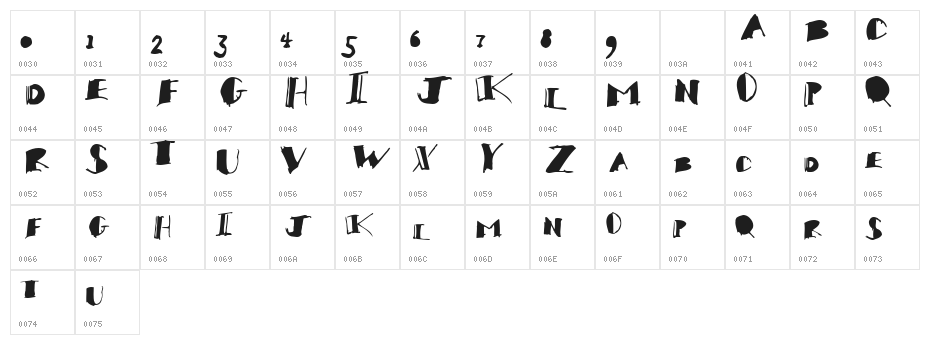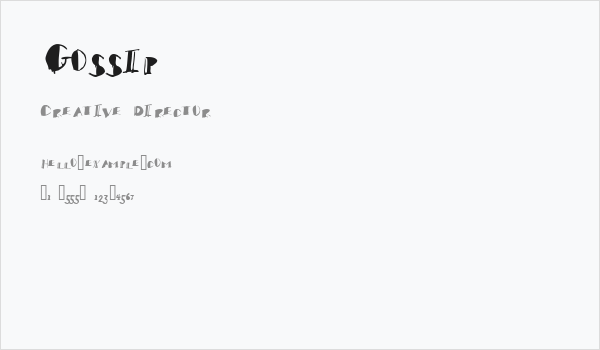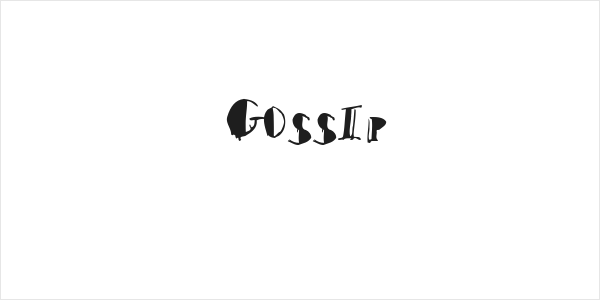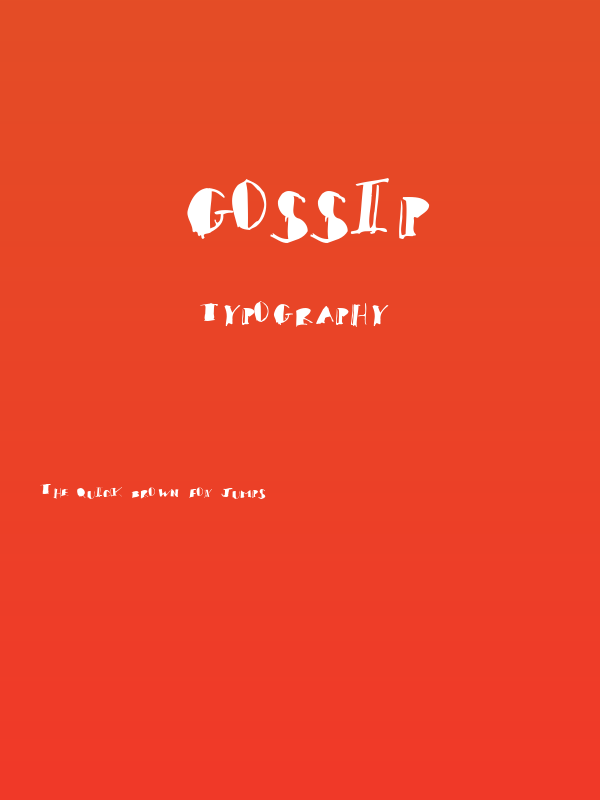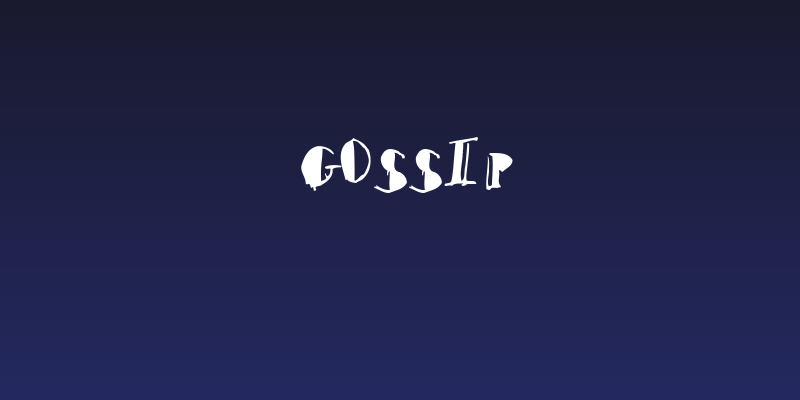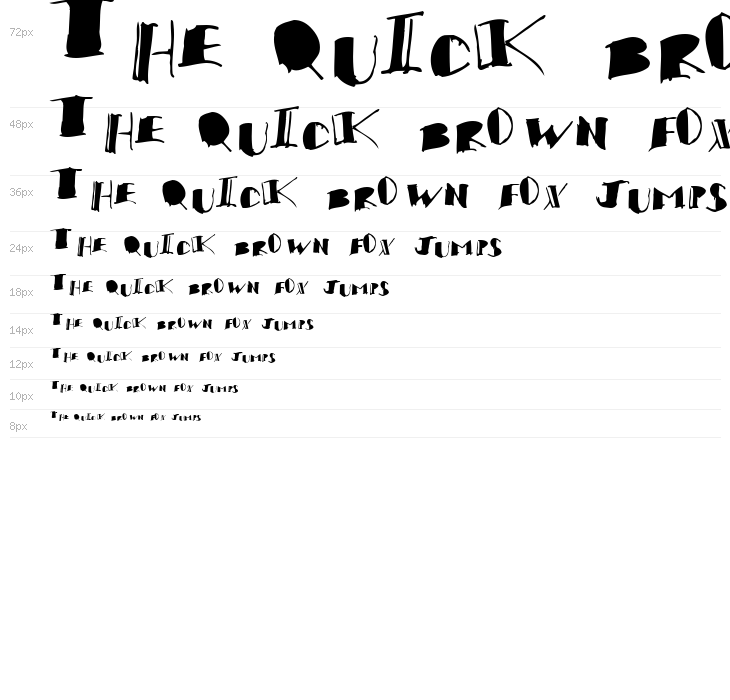
Gossip Font
Gossip Description
This font features a bold and expressive style with a hand-drawn appearance. The characters are irregular and dynamic, giving a sense of movement and energy. The uppercase letters are particularly striking, with varying stroke widths and unique shapes that create a playful and artistic look. The lowercase letters maintain this artistic flair, while the numbers are bold and slightly whimsical. The special characters follow the same expressive style, adding to the font's overall creative and unconventional feel. This font is ideal for projects that require a bold statement and a touch of artistic flair.
| Overall Style | Artistic, Expressive |
| Proposed Projects | Ideal for posters, album covers, artistic branding, and creative advertising. |